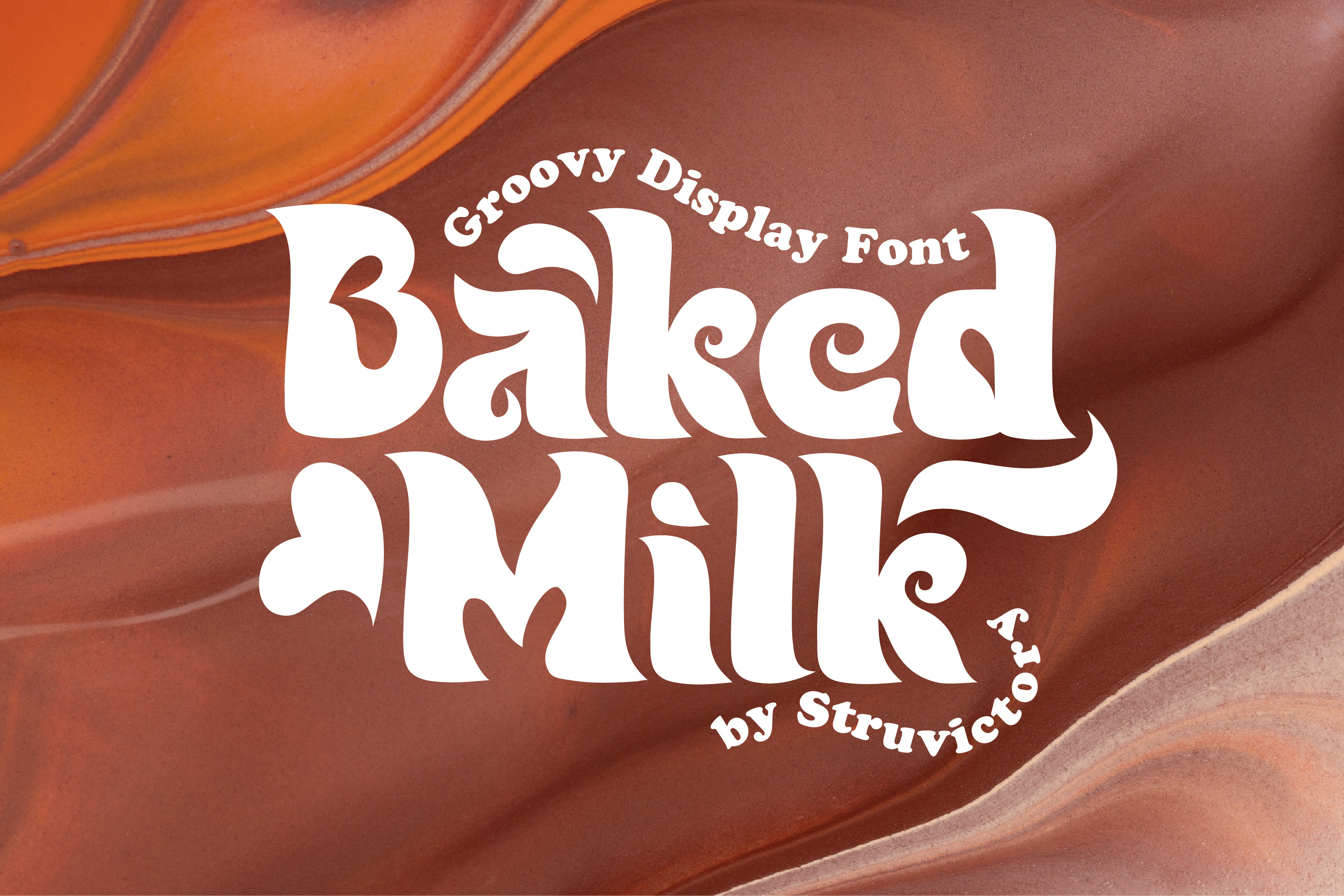
Baked Milk - Groovy Display Font
Baked Milk is a display font family with nostalgic motives. The font is created in a groovy retro style. Baked Milk includes Regular and Symbol Styles. The font is suitable for retro summer posters, menu and social media design, branding, event design etc.
Baked Milk font contains ligatures: aa, dd, ff, ft, hh, jj, kk, ll, mm, nn, oo, pp, rf, rr, rt, ss, tt, uu, Ti. Please contact me if you are not sure that OpenType functions will work correctly in your programs.